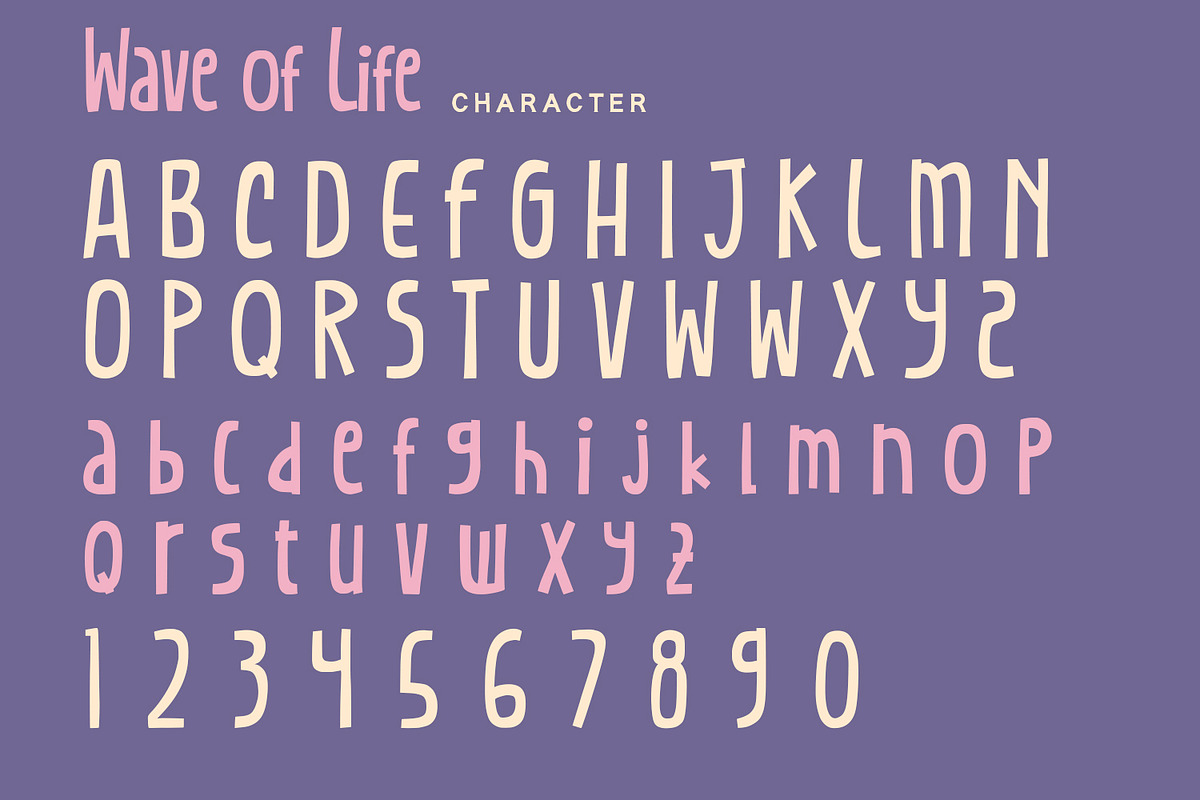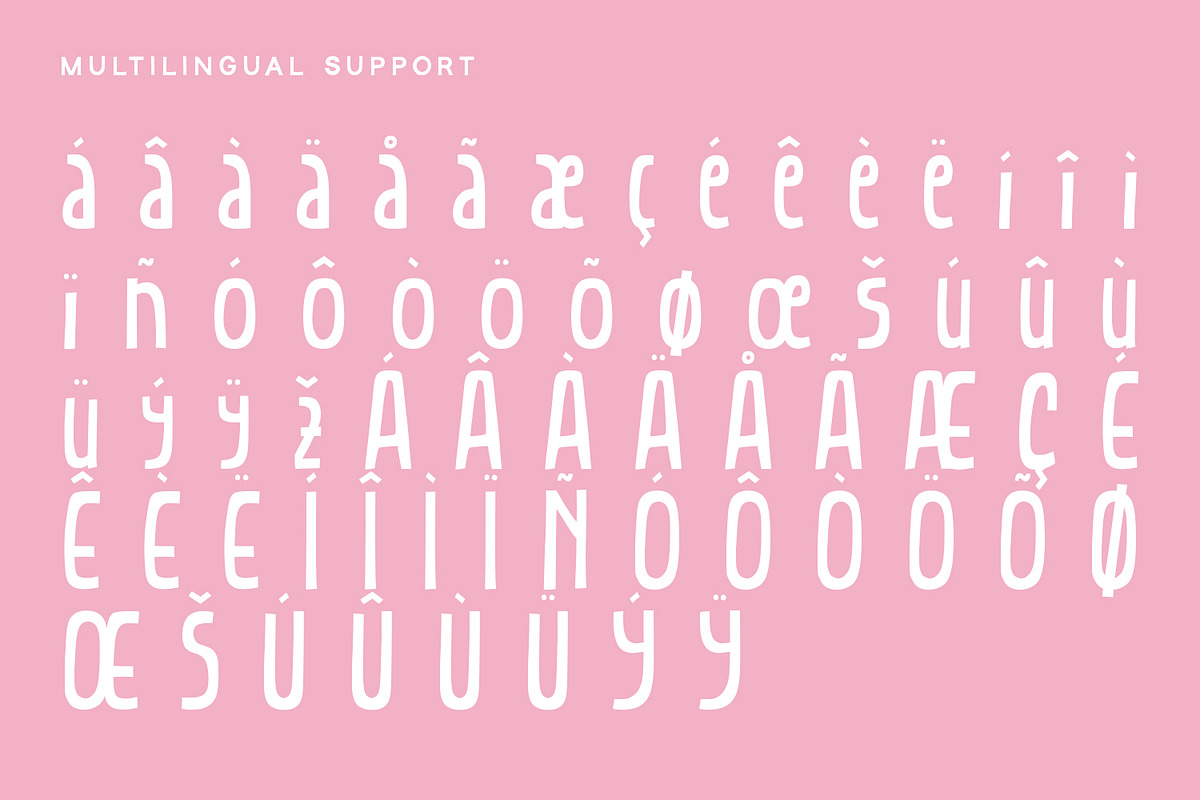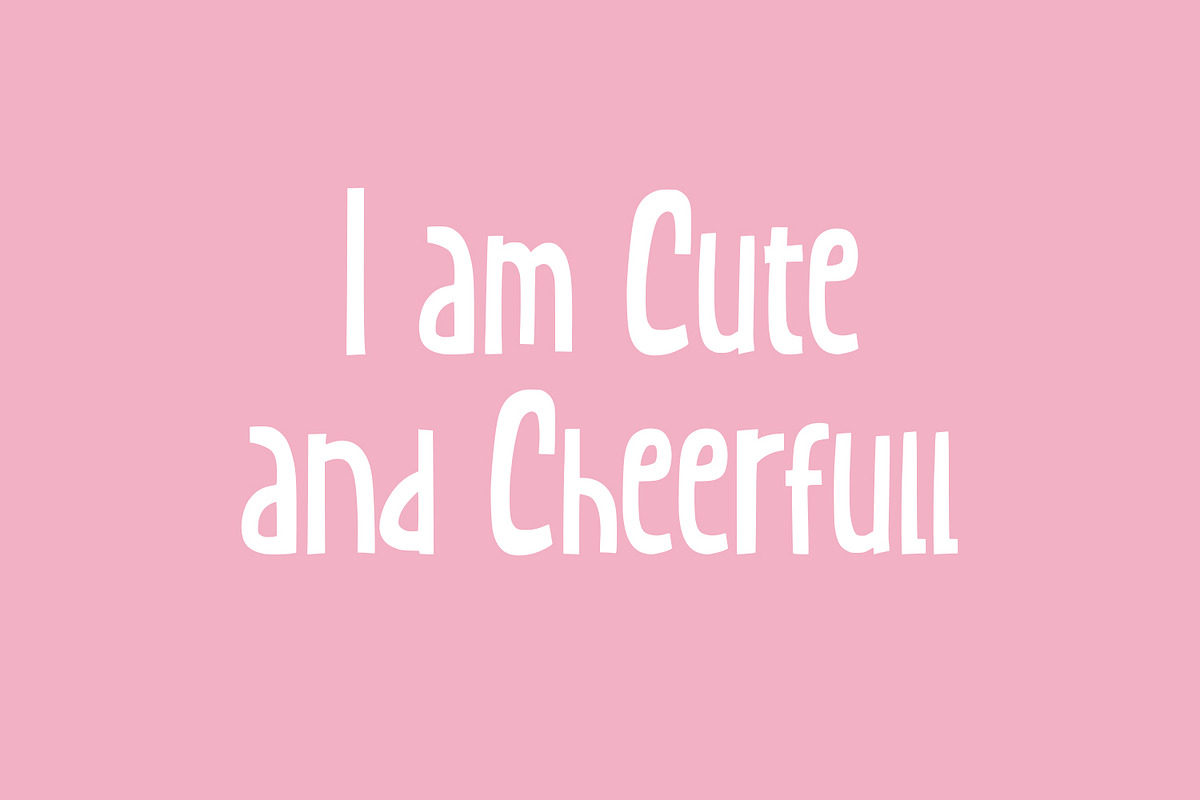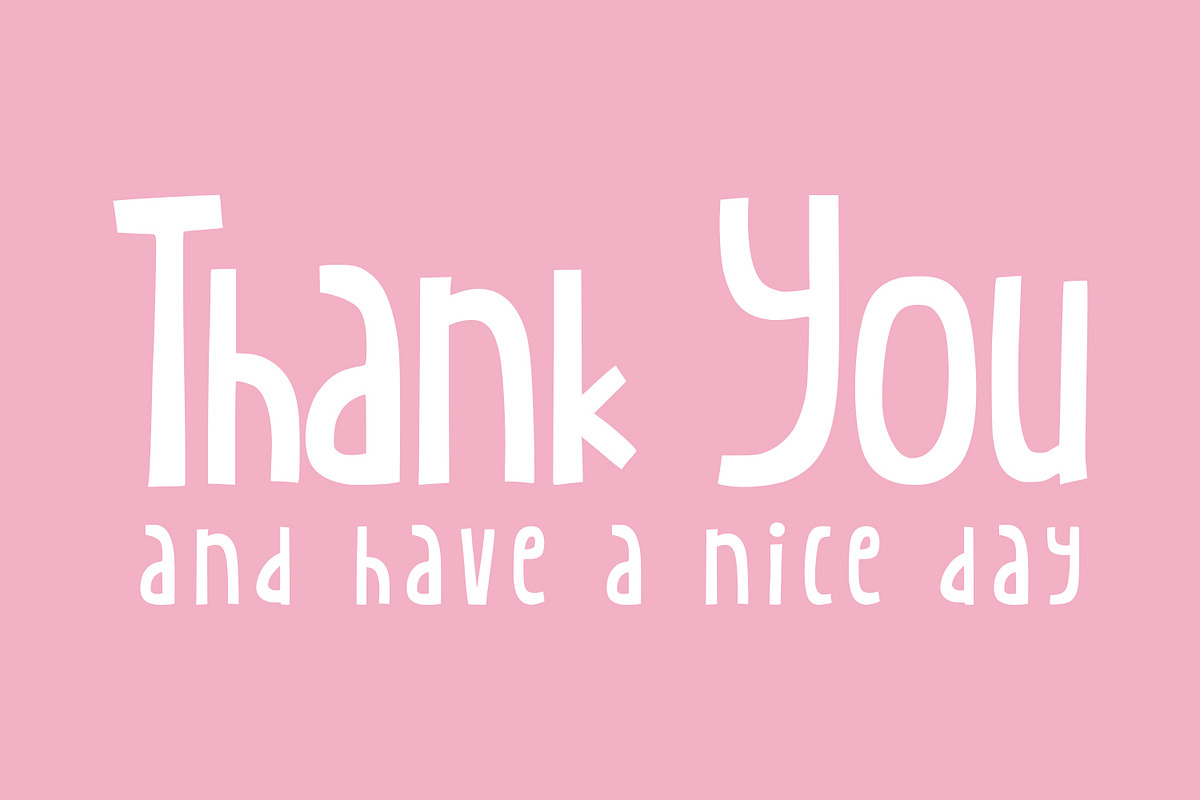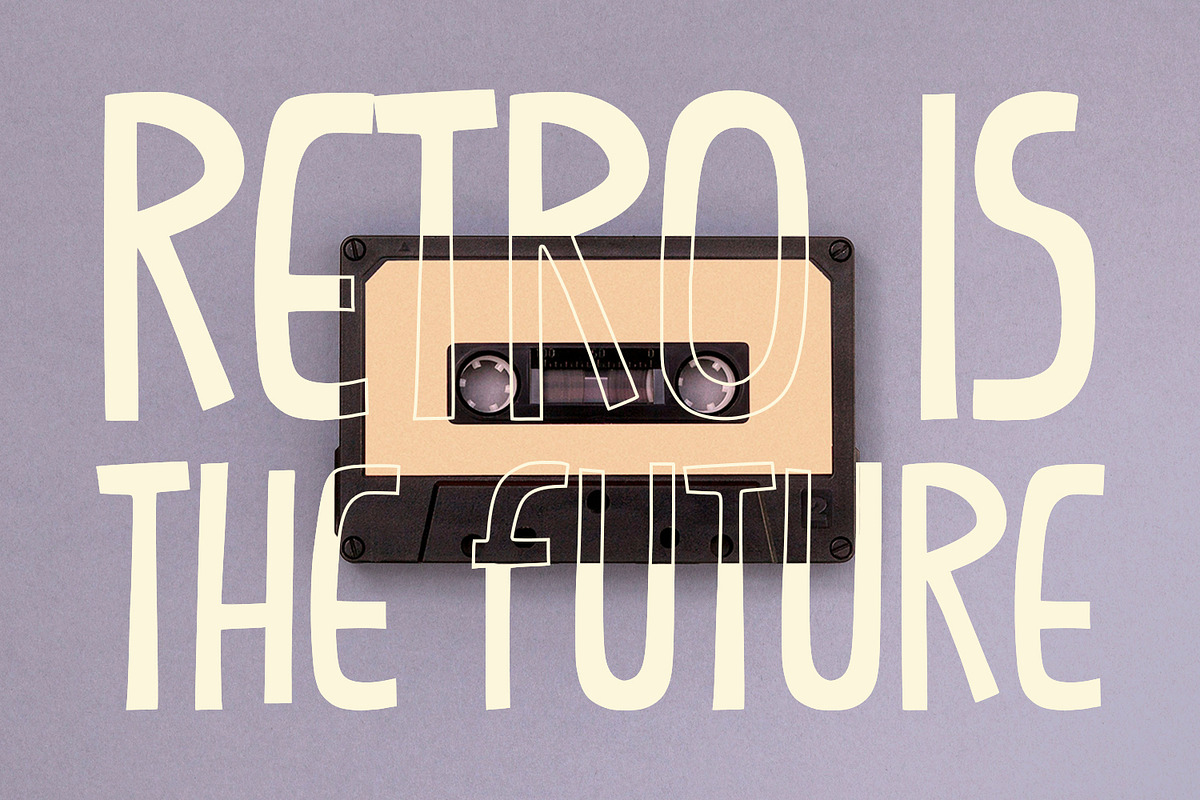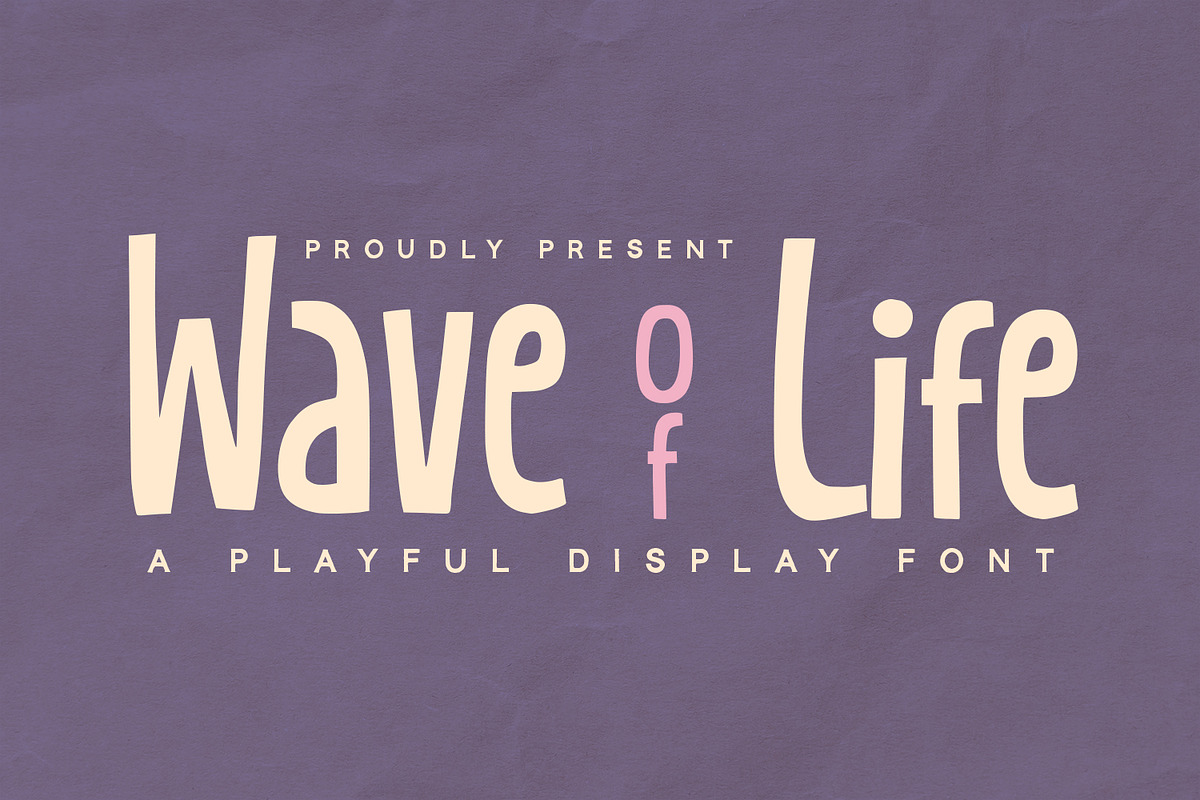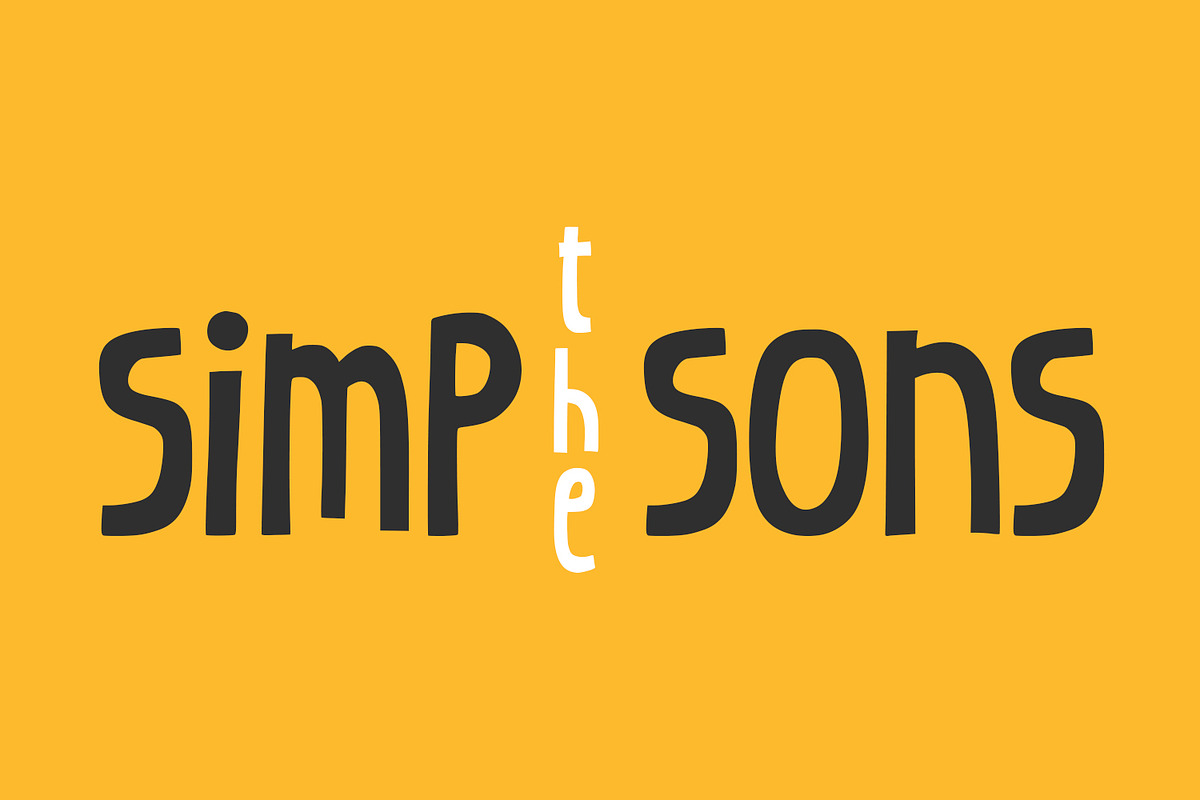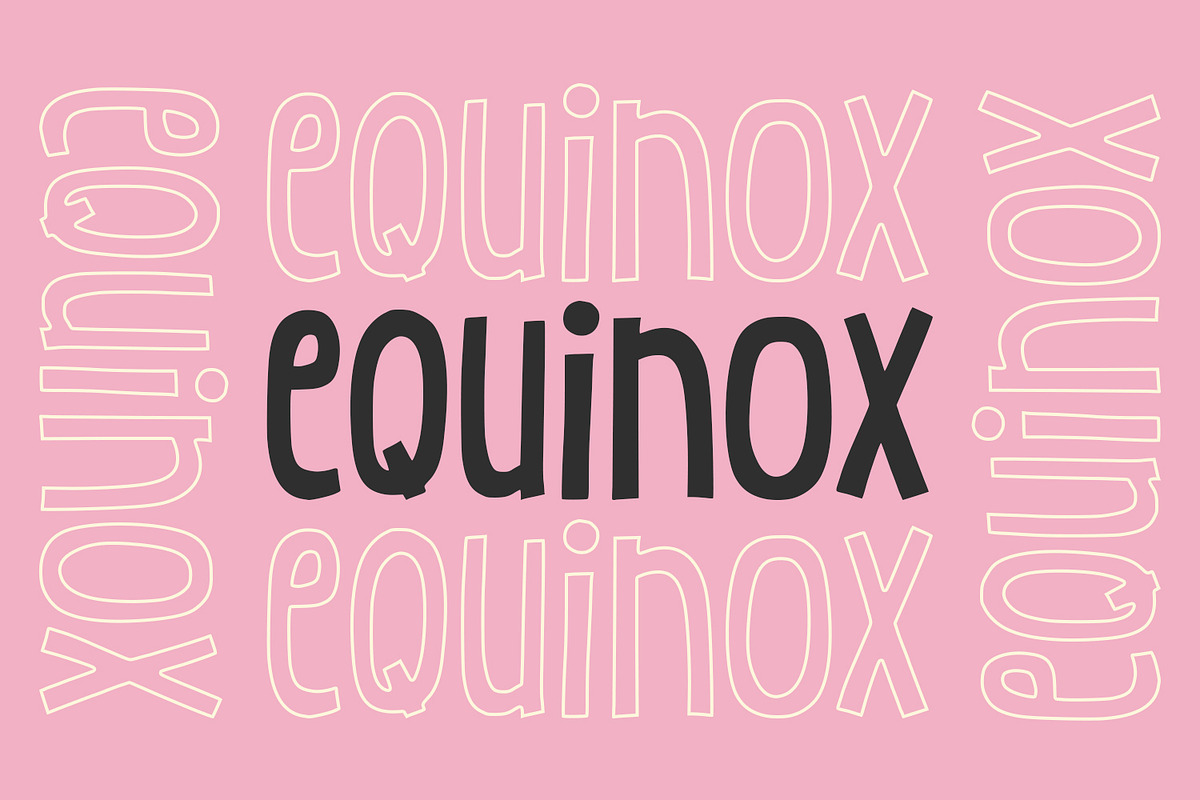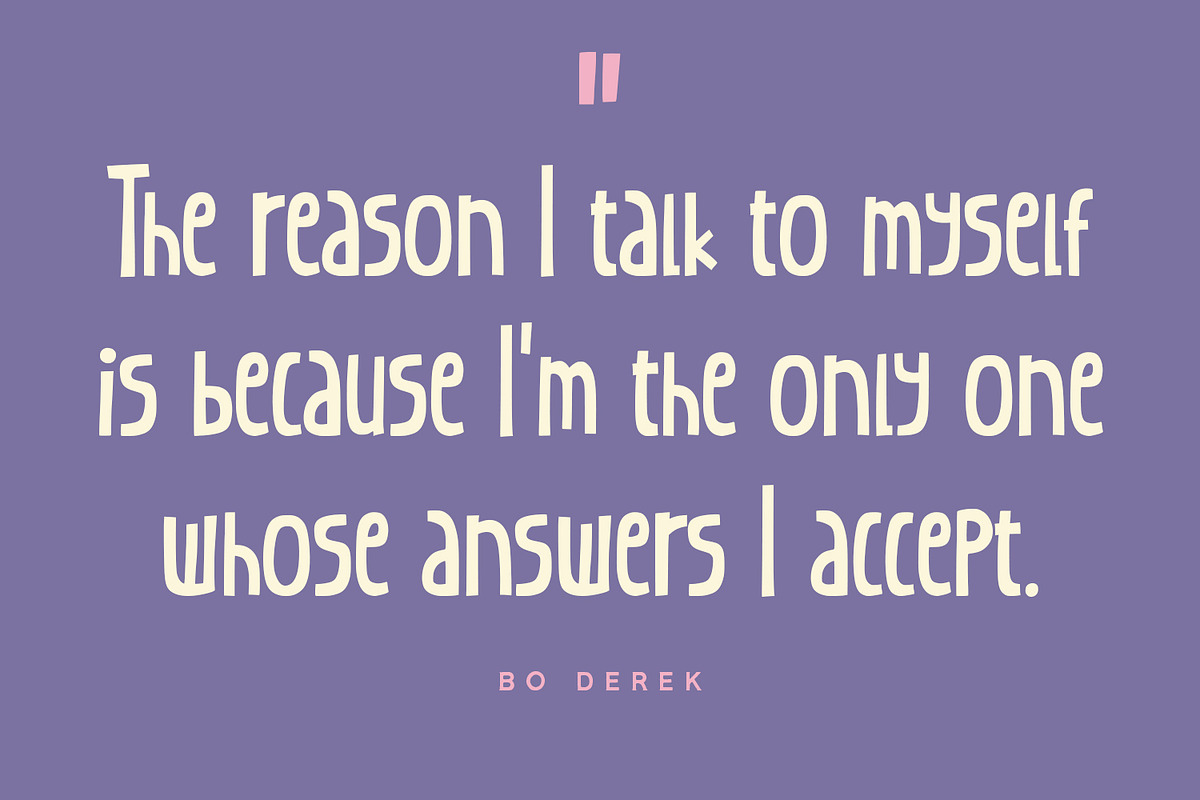
Wave of Life - Display Font
Wave of Life is a display font with unique and modern feels. It will be perfectly used for Branding, Logo Design, Lettering, Logotype, Clothing, Poster, magazine, packaging, posters, shopping bags, t-shirts, book covers, photography, special events and other design project.